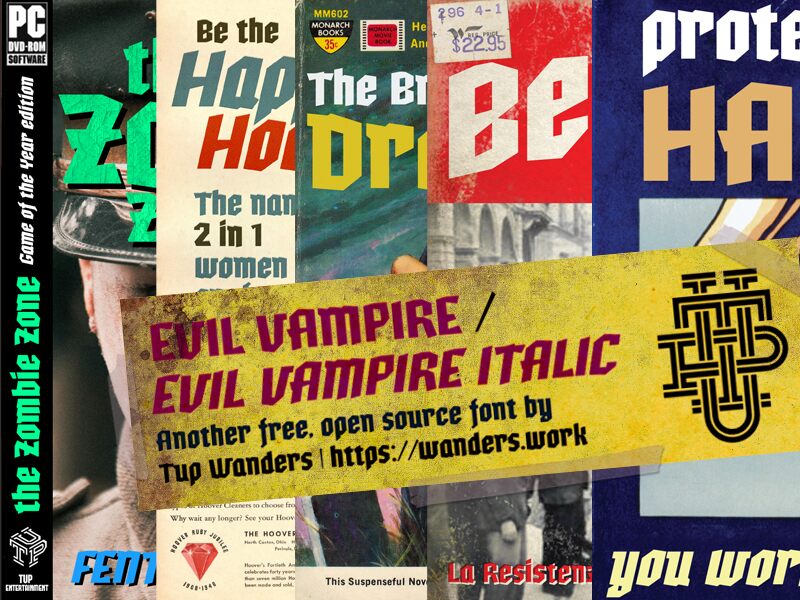
Evil Vampire
When I was studying graphics at art school in the early 1980s, I was a big fan of Piet Schreuders; he is a typophile with a flawless taste for bad typography, designer of gorgeous magazines like Aloha, Furore and the Poezenkrant. Schreuders was one of the first to recognise the beautiful imperfections of type designs from pulp publications and cheap advertisements of the decades before. And you could see he took immense pleasure in using all those fonts in his designs.
As I got older and had more free time, I started designing typefaces myself and many times that fascination with old wrong and ugly type turned out to become a good motivation for me to make more fonts. I like useless crap :) I've never reconstructed or redesigned existing fonts btw, I just remember the fonts I once saw, keep them in the back of my mind and then make my own design from scratch.
This Evil Vampire font started out as that. A bit weird blocky italic typeface that I remembered from the 1920's to the 1940's magazines. I hope you can use it, and do send me samples of what you've made! Cheers!